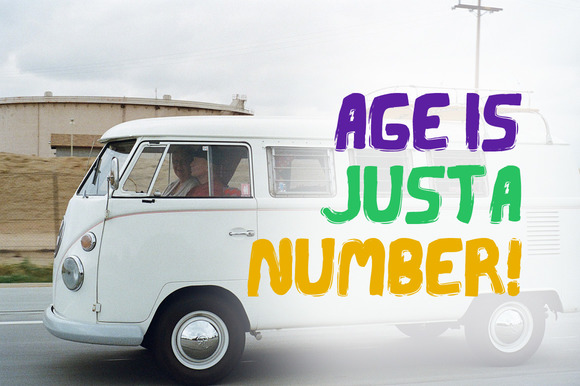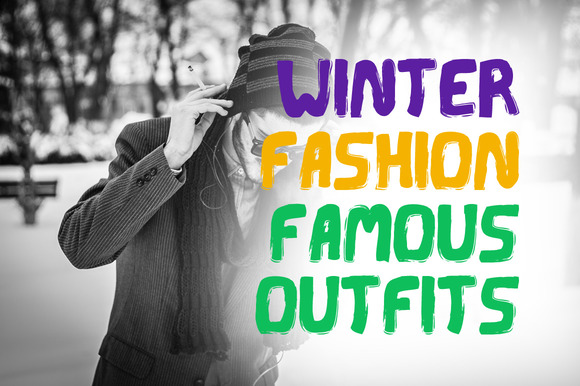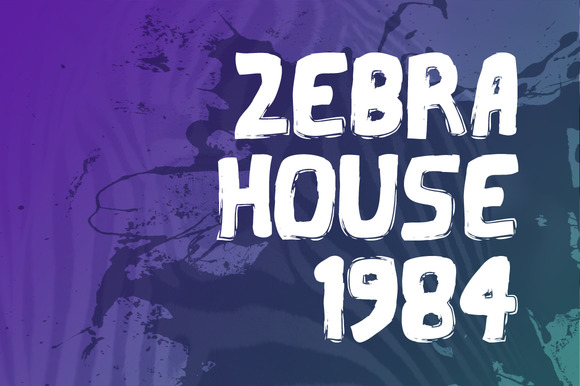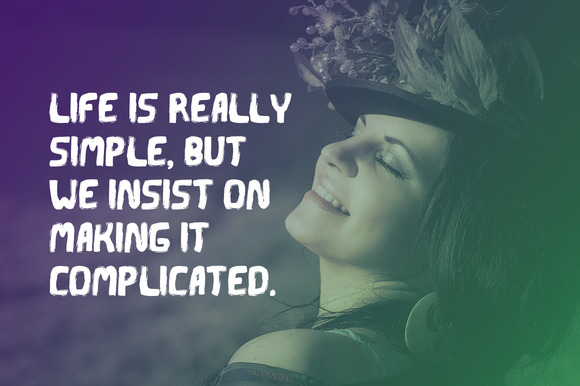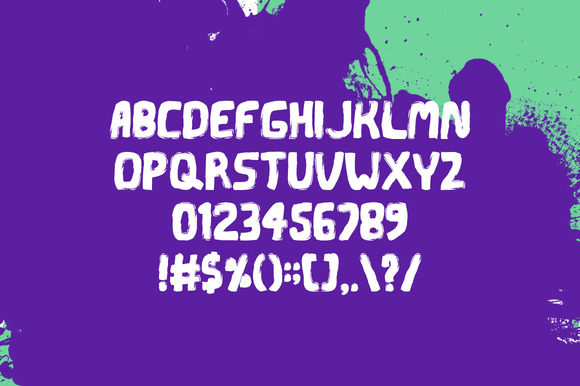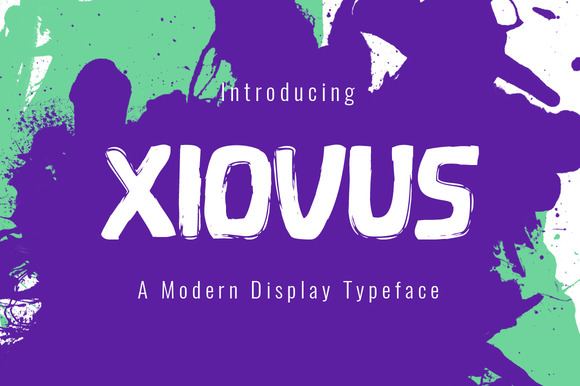
Xiovus Typeface
Xiovus is a modern handmade display font. Xiovus is perfectly suited to stationery, logos, t-shirt, paper, print design, website header, photo frame, flyer, music cover, poster, image slider and much more.